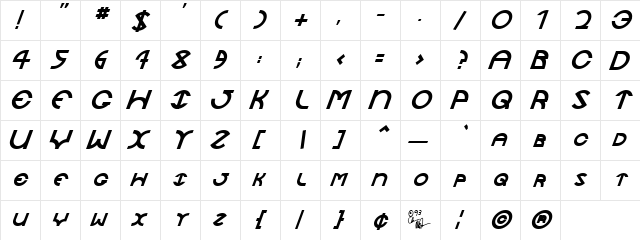
JaySetch BoldItalic
Design Context for JaySetch Typeface
JaySetch takes a measured approach to typography — its balanced proportions and neutral character make it a reliable workhorse for both digital and print work. The slanted form adds forward momentum and visual energy. The heavy weight commands attention and anchors typographic hierarchies.